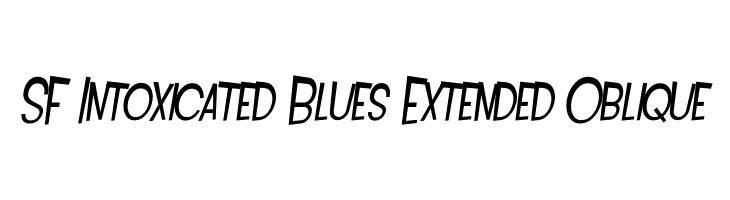
A bold, decorative font with exaggerated proportions and dynamic energy.
A bold, playful font with uneven strokes and a dynamic, hand-drawn style.
A dynamic, oblique font with a modern, energetic style.
A bold, oblique font with a dynamic and modern style.
A bold, dynamic font with a playful, slanted style and uneven strokes.
A bold, playful font with angular strokes and a dynamic slant.
A bold, oblique font with sharp angles and dynamic style.
A bold, dynamic font with a playful, hand-drawn style and slanted, energetic characters.